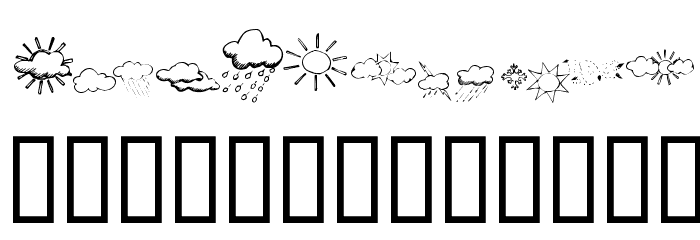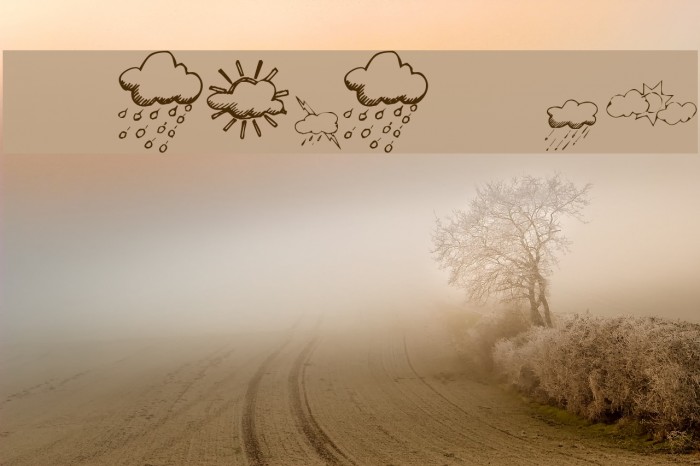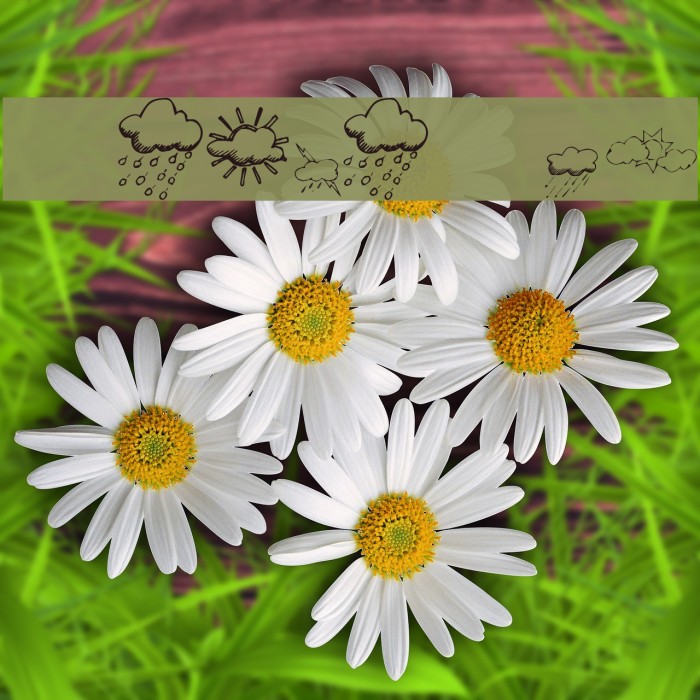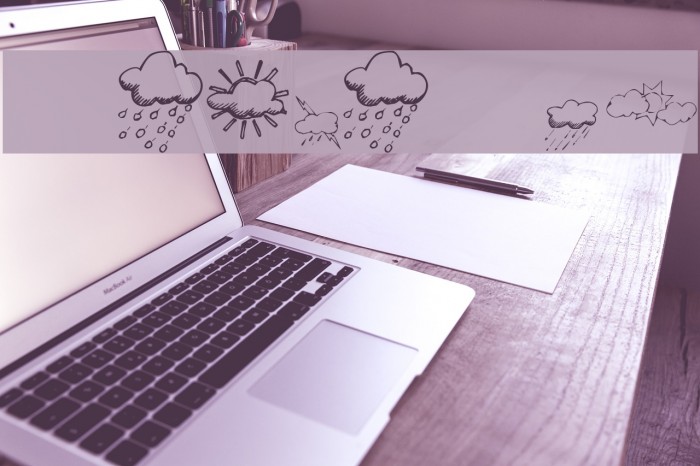
KR Weather Dings Font
This is a decorative font featuring a series of weather-themed dingbats. Each character is represented by a unique weather symbol, such as clouds, sun, rain, and snowflakes. The illustrations are hand-drawn, giving them a whimsical and playful appearance. The symbols are detailed and varied, capturing different weather conditions with artistic flair. This font is ideal for projects that require a creative and thematic approach, particularly those related to weather, seasons, or nature.
A decorative font with hand-drawn weather-themed symbols.
- Proposed Projects: Ideal for weather reports, educational materials, children's books, or any project needing thematic weather illustrations.
- Use Case: Logos, Illustrations, Thematic Designs